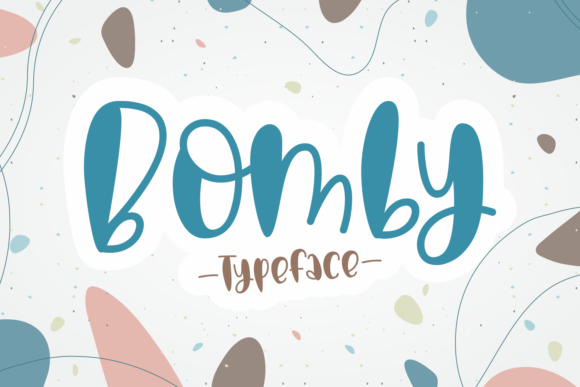
The Joy of Typography: Introducing the Bomby Font
Who hasn’t had a moment where they’re rummaging through their sketchbook, searching for the perfect font to match the playful vibe of their latest design? It’s a feeling of pure excitement and anticipation, knowing that the right font can make all the difference between a good design and a great one. For designers working on children-related projects, this feeling is especially true.
Enter the Bomby Font, a fun and quirky display font designed to bring joy and whimsy to any design. This charming font is perfect for creating engaging and child-friendly content, from nursery rhymes to educational materials. Its playful nature makes it an invaluable asset for designers looking to add a touch of magic to their work. By incorporating the Bomby Font into your design, you’ll be able to tap into its infectious energy and create something truly special.
Bomby Font Key Features
- Font Family: Bomby Font comes in multiple font styles, including Regular, Bold, Italic, and Bold Italic.
- Character Set: The font includes a wide range of characters, including Latin, Cyrillic, and Greek alphabets, making it suitable for global designs.
- Resolution: Optimized for high-resolution displays, Bomby Font is ideal for use in digital designs, including websites, mobile apps, and social media graphics.
- Unique Characteristics: The font features a unique blend of modern and vintage elements, making it perfect for creating eye-catching and memorable designs.
Bomby Font Review
As a designer, I’m always on the lookout for unique and visually appealing fonts. The Bomby font is no exception. I’ve been experimenting with it, and here are my honest thoughts.
- The distinctive, playful style of Bomby is perfect for adding a touch of whimsy to designs.
- The font is highly customizable, with a wide range of styles and weights to choose from.
- The Bomby font is optimized for digital use, ensuring crisp and clear rendering across various devices and resolutions.
- The font may not be suitable for formal or professional projects, as its playful style can come across as unprofessional.
- The sheer number of styles and weights available can be overwhelming, making it difficult to choose the perfect combination for a particular project.
Overall, I think the Bomby font is a great addition to any designer’s toolkit. While it may have some limitations, its unique style and high level of customizability make it a great choice for designers looking to add some personality to their work.
Bomby Font is ideal for:
1. Creative projects that require a unique and eye-catching font.
2. Branding and identity design where a distinctive font is needed.
3. Social media graphics and advertisements that require a bold and attention-grabbing font.